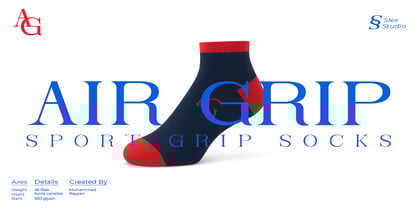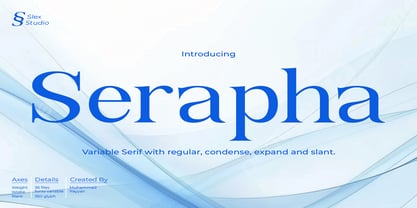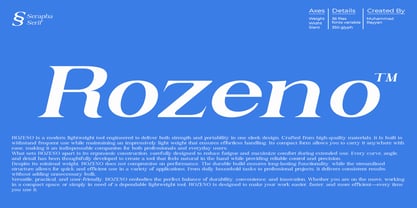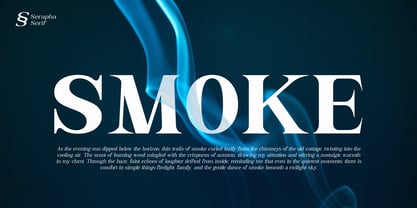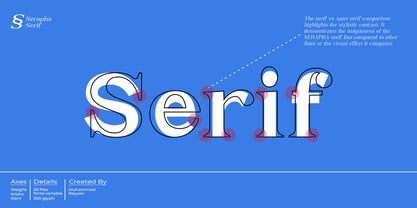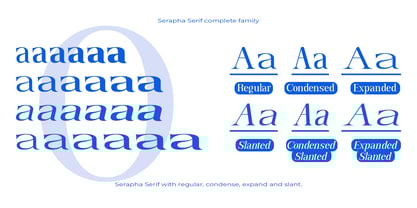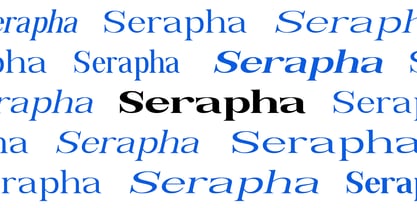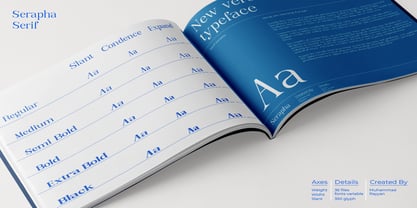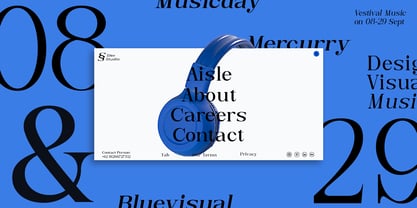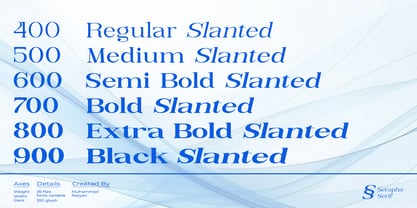
Serapha Serif
by Slex Studio
The Serapha Serif Font Family was designed by Muhammad Rayyan and published by Slex Studio. Serapha Serif contains 36 styles and family package options.
Serapha Serif is an elegant and flexible variable serif font, designed to blend classic elegance with a contemporary feel. With balanced letter proportions, slightly curved fine serifs, and precise, thin angles, this font conveys a strong yet refined elegance. The font offers “condense,” “expand,” “slant,” and “regular” style modules that allow for customization of both headlines and body text, while maintaining high readability. Serapha is suitable for branding, editorial, or premium graphic design that wants to convey a strong visual identity while maintaining a friendly and professional feel.
About Slex Studio
Slex Studio was founded in 2019 and is run by Muhammad Rayyan. I love to draw letters, fall in love with writing and write letters for a living. I love exploring and seeing how typography reflects a brand's personality. I want to continue to develop my creativity and use my passion to bring greater benefits to myself and the designer community. Founded Slex Studio to help designers choose their projects. I concentrate on handcrafted quality fonts, mostly script styles and more. Now pursuing my new passion completely from my home studio. Turned my freelance business into a type designer.